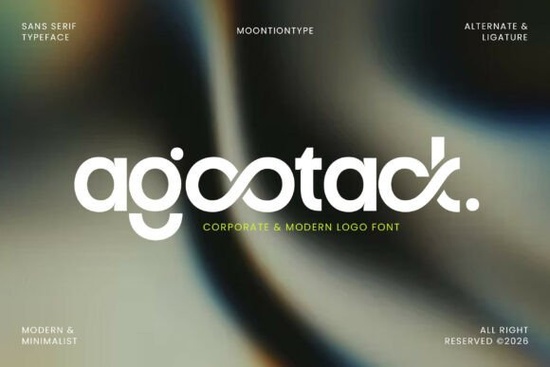
If you've been searching for a clean, modern typeface that works across branding, logos, and digital layouts, the Agootack Font is worth a close look. It's a sans serif typeface with smooth curves, unique letterforms, and stylish ligatures designed to give your projects a polished, contemporary feel without being overcomplicated.
As someone who works with fonts daily for client projects and personal designs, I've found that finding the right balance between simplicity and character is surprisingly difficult. Agootack manages to hit that sweet spot. Let me break down what makes it useful and where it fits best.
What Makes Agootack Different from Other Sans Serif Fonts?
Plenty of modern sans serif fonts look clean but feel generic. Agootack stands apart because of its elegant alternates and ligatures that add personality without sacrificing readability. The letterforms have subtle, intentional details curves that flow naturally and proportions that feel balanced at both large and small sizes.
Compared to something like Helvetica Font, which leans heavily on neutrality, Agootack brings a fresher, slightly more futuristic aesthetic. It's not trying to be invisible it's trying to be distinctive while still remaining professional.
If you've explored fonts like the Grandeur typeface or the Bisked font, you already know how much a well-crafted sans serif can transform a layout. Agootack fits right into that category of fonts that look expensive but are easy to work with.
What Types of Projects Work Best with This Font?
Agootack was designed with a corporate and contemporary aesthetic, which makes it highly versatile. Here's where I've seen it work particularly well:
- Logo design The ligatures and alternates let you create custom wordmarks that feel unique to each brand.
- Corporate branding Clean enough for professional use, distinctive enough to avoid looking like every other business card.
- Tech and startup projects The slightly futuristic vibe pairs well with modern tech branding.
- Editorial layouts Works beautifully for headlines and pull quotes in magazines or blog graphics.
- Social media graphics Reads well at small sizes and looks sharp on screens.
- Website typography A solid choice for headings and hero text in web design.
- Packaging design Minimalist product packaging benefits from fonts like this that feel refined without being cold.
For print-on-demand sellers, a font like Agootack can help your product mockups look more cohesive and professional which directly impacts how customers perceive your shop.
How Does It Pair with Other Fonts?
One thing I always consider is how a display or heading font works alongside a body text option. Agootack pairs well with softer, rounded typefaces. For example, combining it with something from a rounded sans serif font bundle creates a nice contrast sharp and modern for headings, friendly and approachable for body copy.
You could also pair it with a traditional serif for editorial projects. The contrast between Agootack's clean geometry and an ornate serif creates visual interest without feeling chaotic.
Is Agootack Right for Your Next Project?
If you need a modern sans serif that doesn't look like a default system font, Agootack is a solid choice. It works especially well for designers who want something clean but not boring a font with enough personality to make branding feel intentional without overwhelming the rest of the design.
It's a good fit whether you're building a brand identity from scratch, designing social media templates, or creating product packaging for a small business.